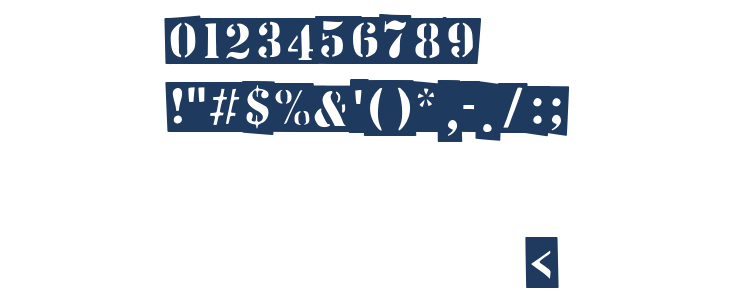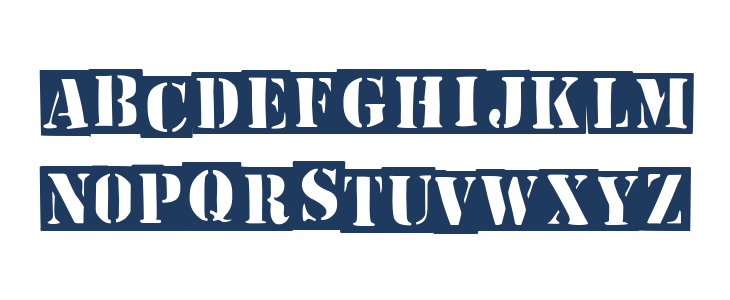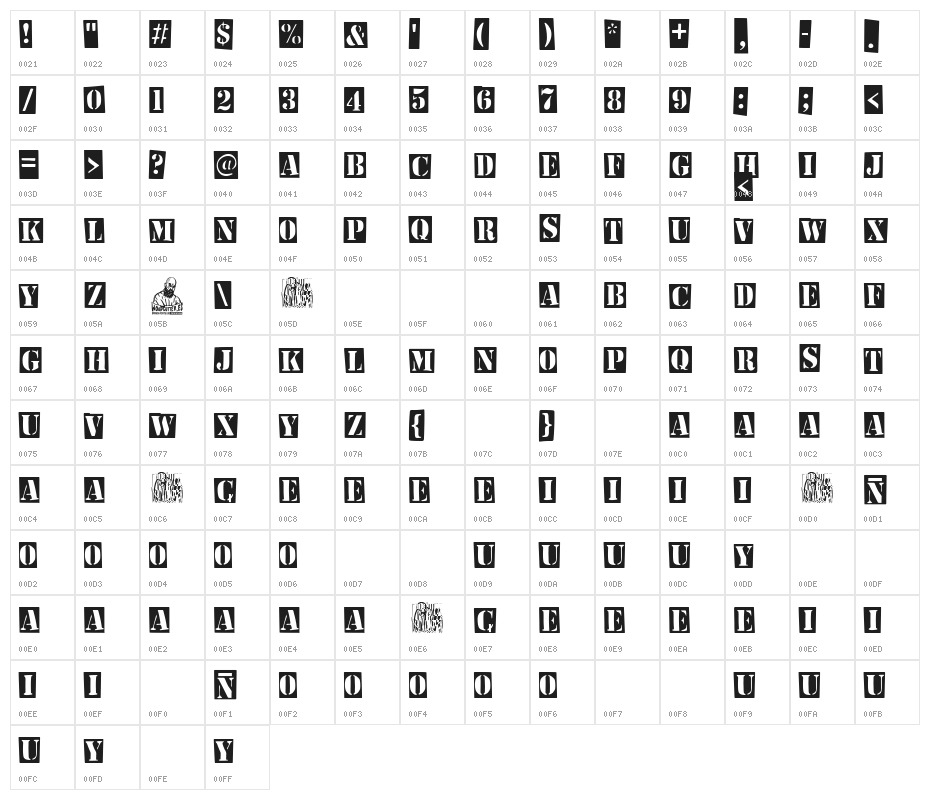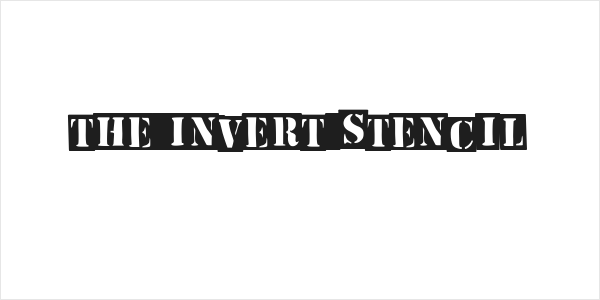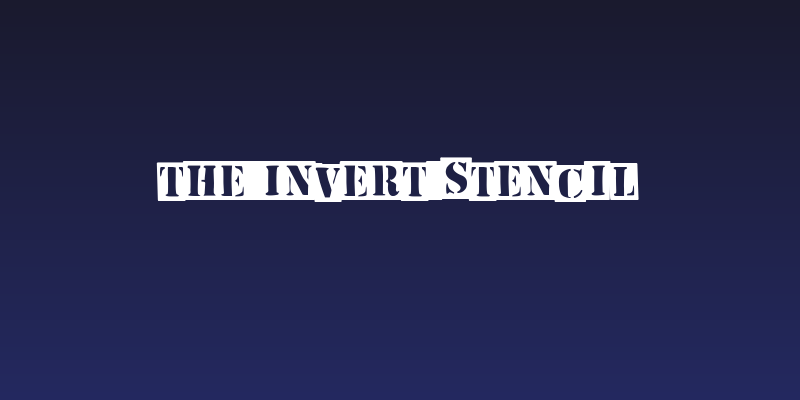
The Invert Stencil Font
A bold, uppercase stencil-style font with high contrast and geometric cutouts, evoking an industrial and utilitarian feel. The characters are blocky with sharp edges and distinct breaks, typical of stenciled lettering used for signage or labeling.
| Overall Style | Industrial, Stencil, Decorative |
| Use Case | Headlines, Posters, Signage, Labels, Logos |
| Proposed Projects | Posters, military-themed designs, industrial branding, packaging, signage, street art, event graphics. |